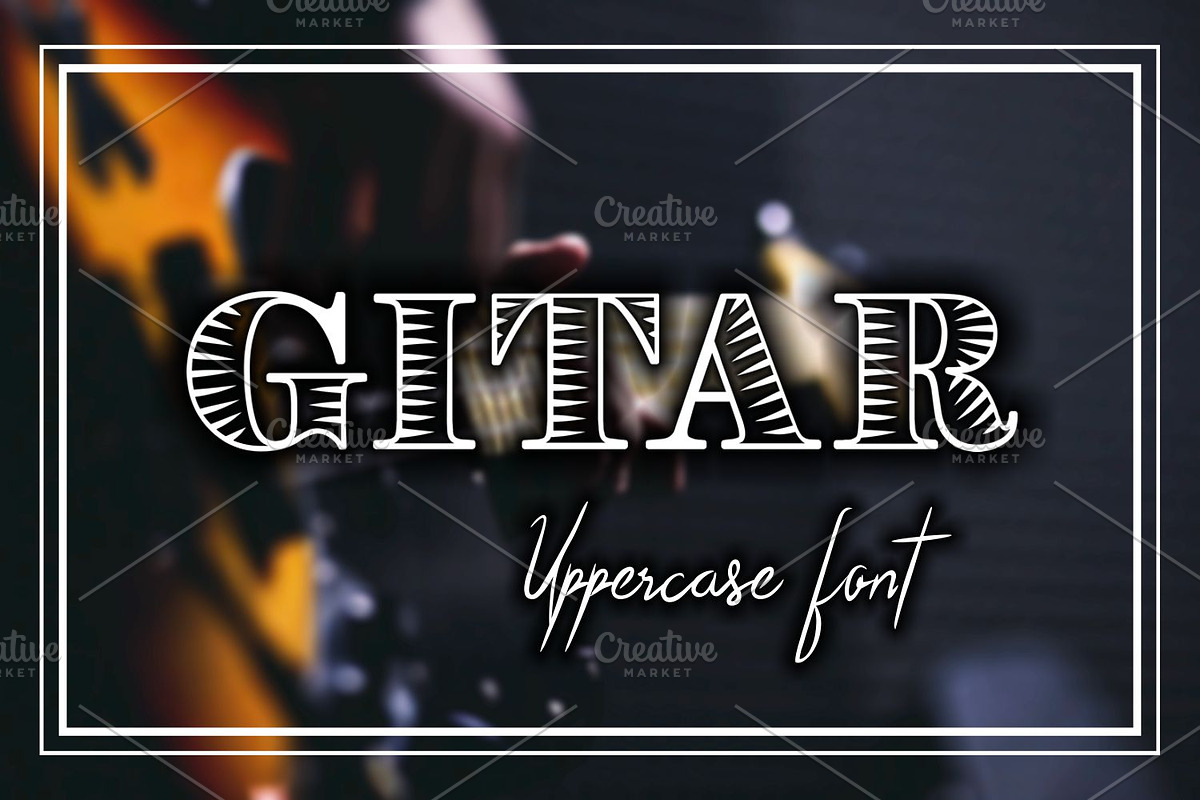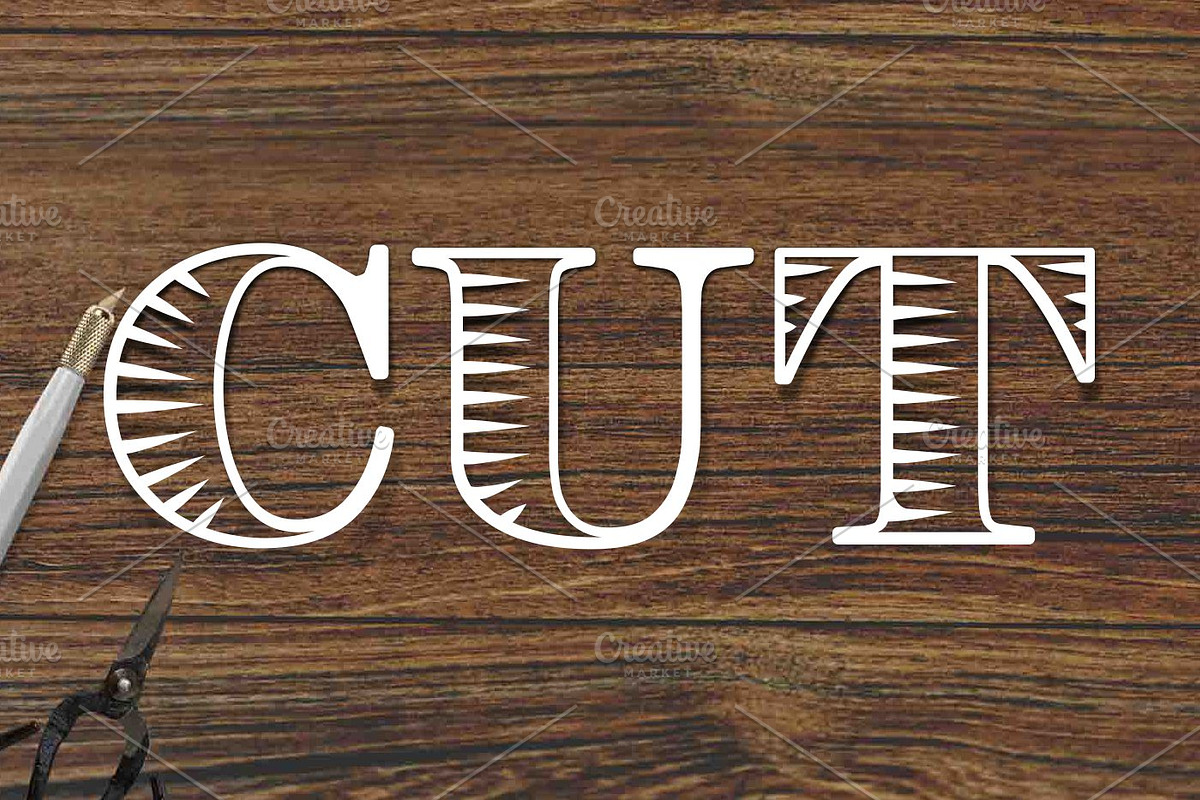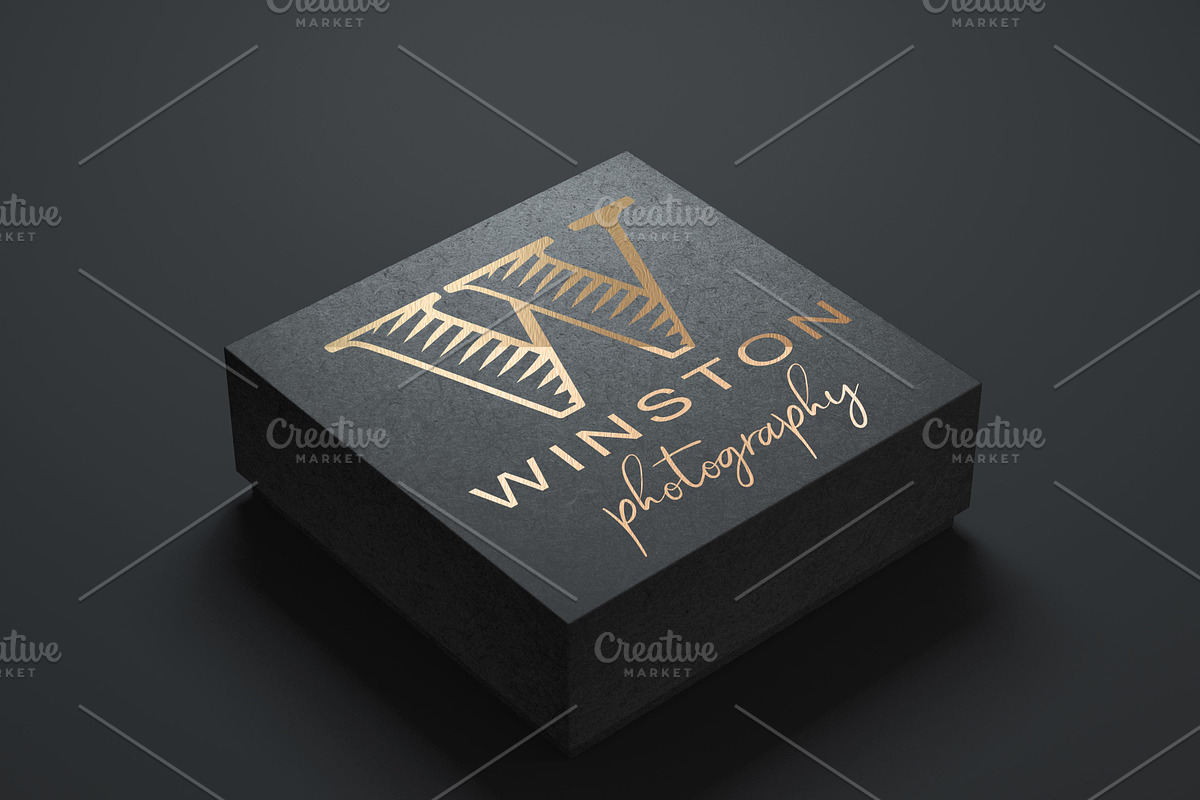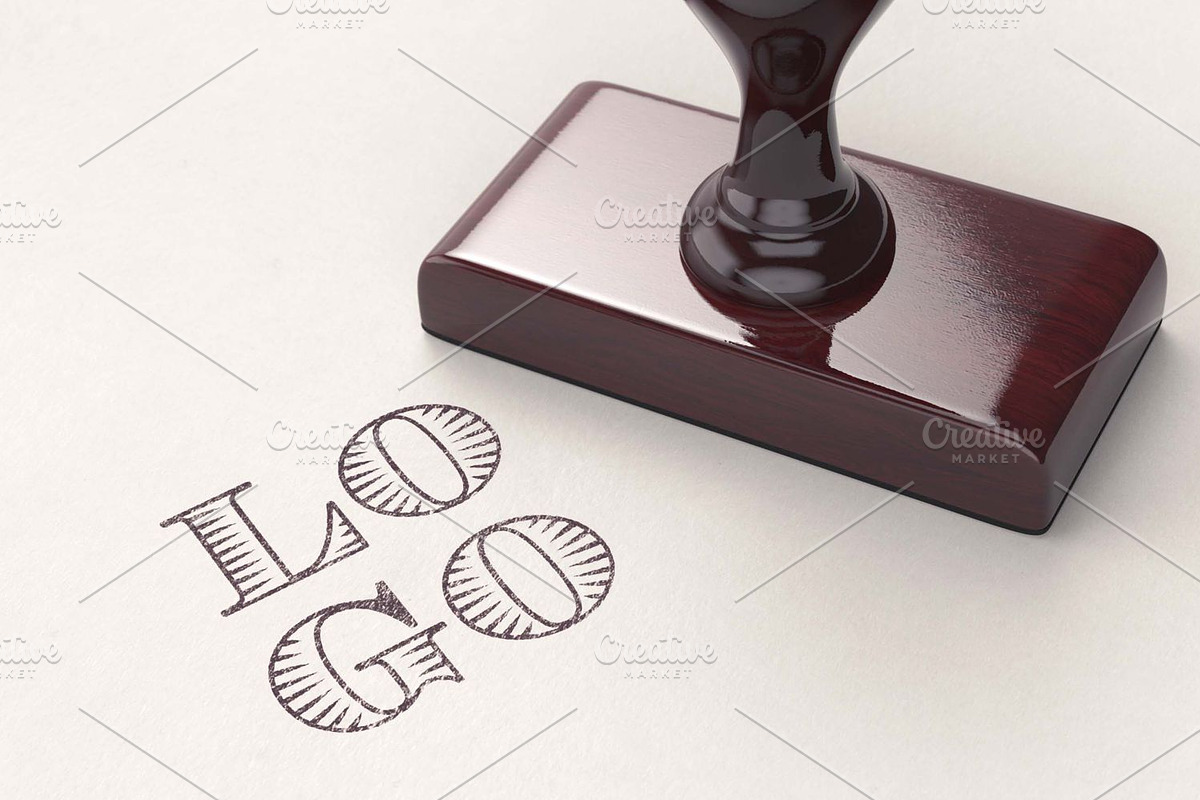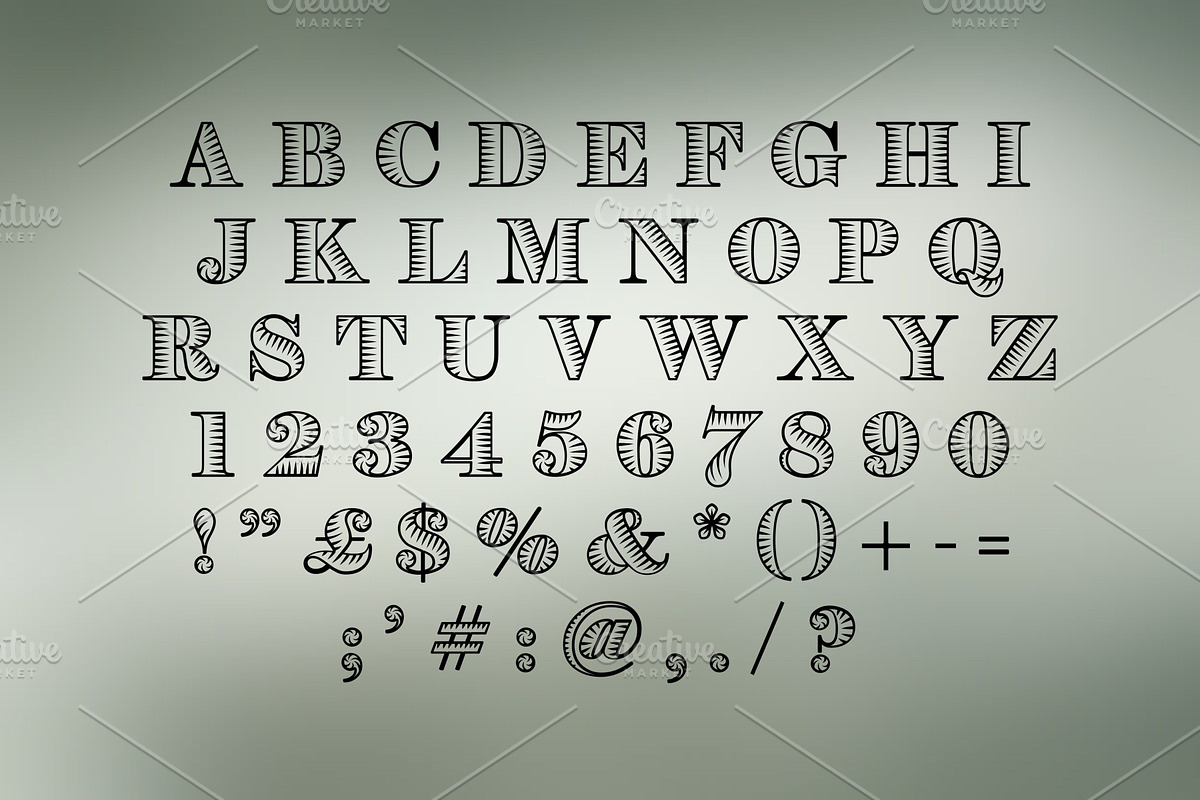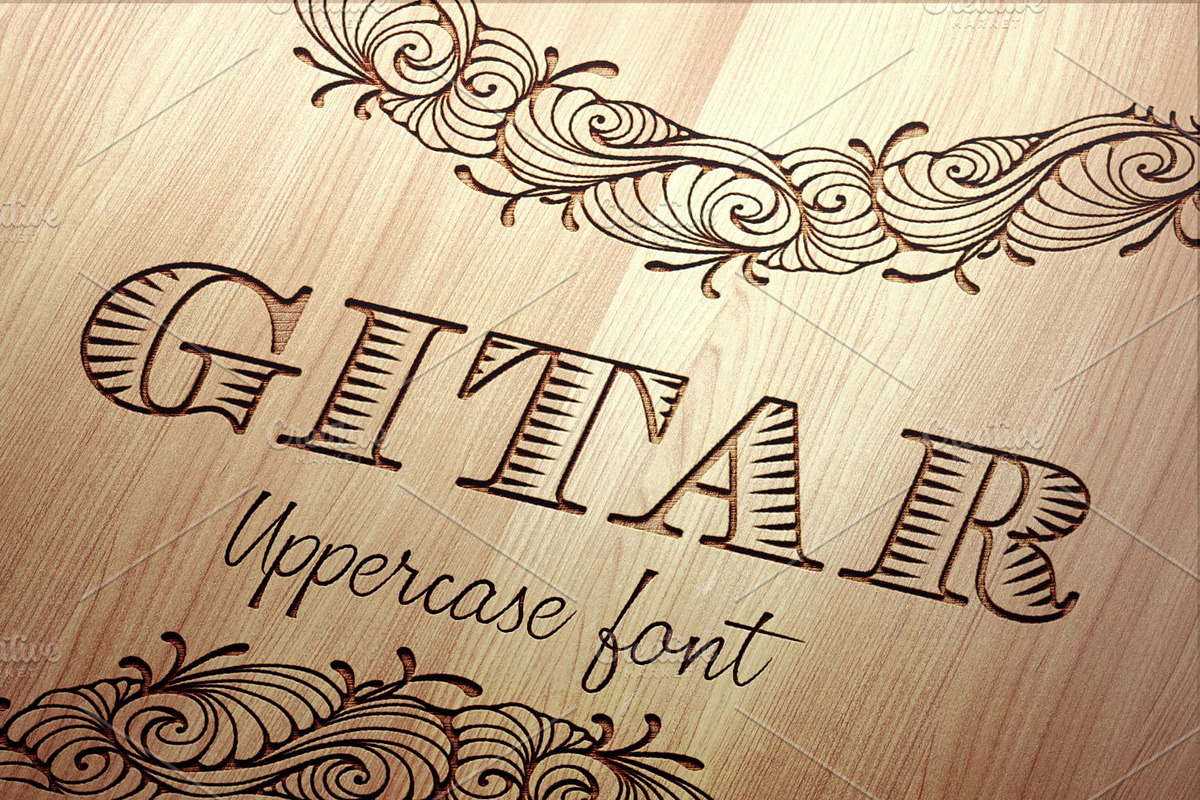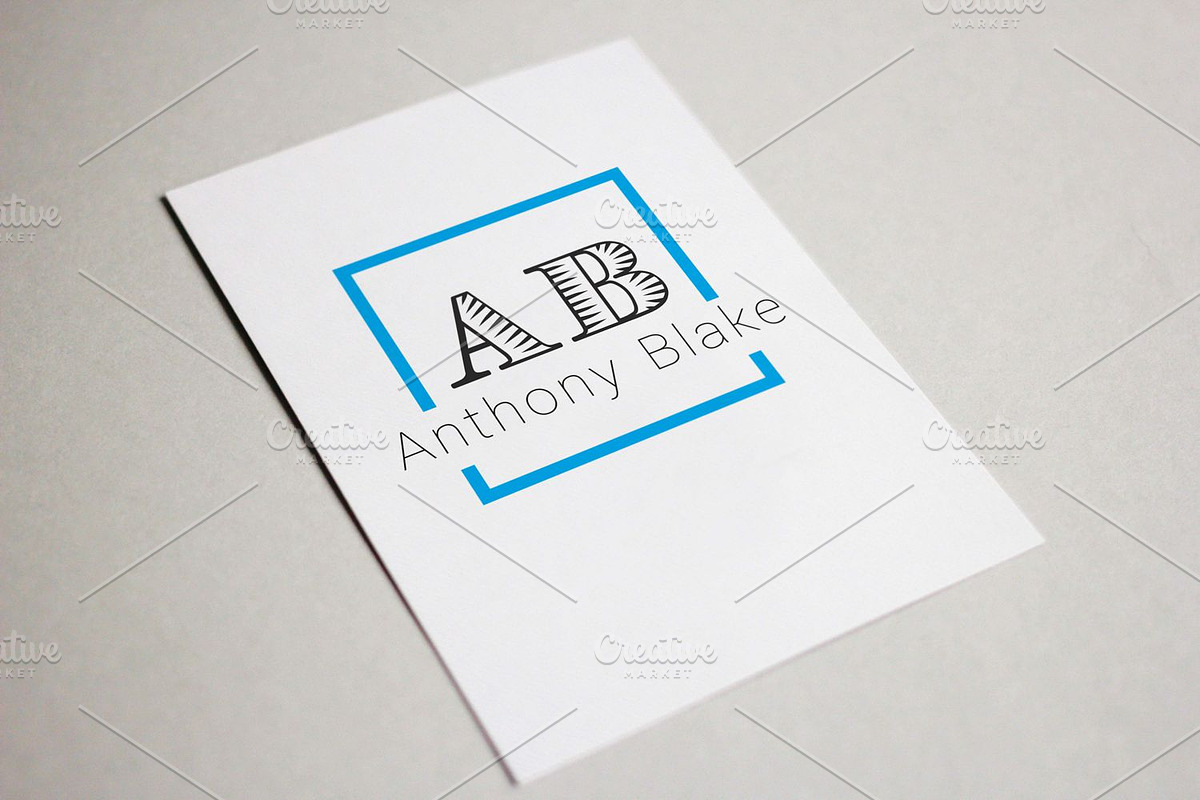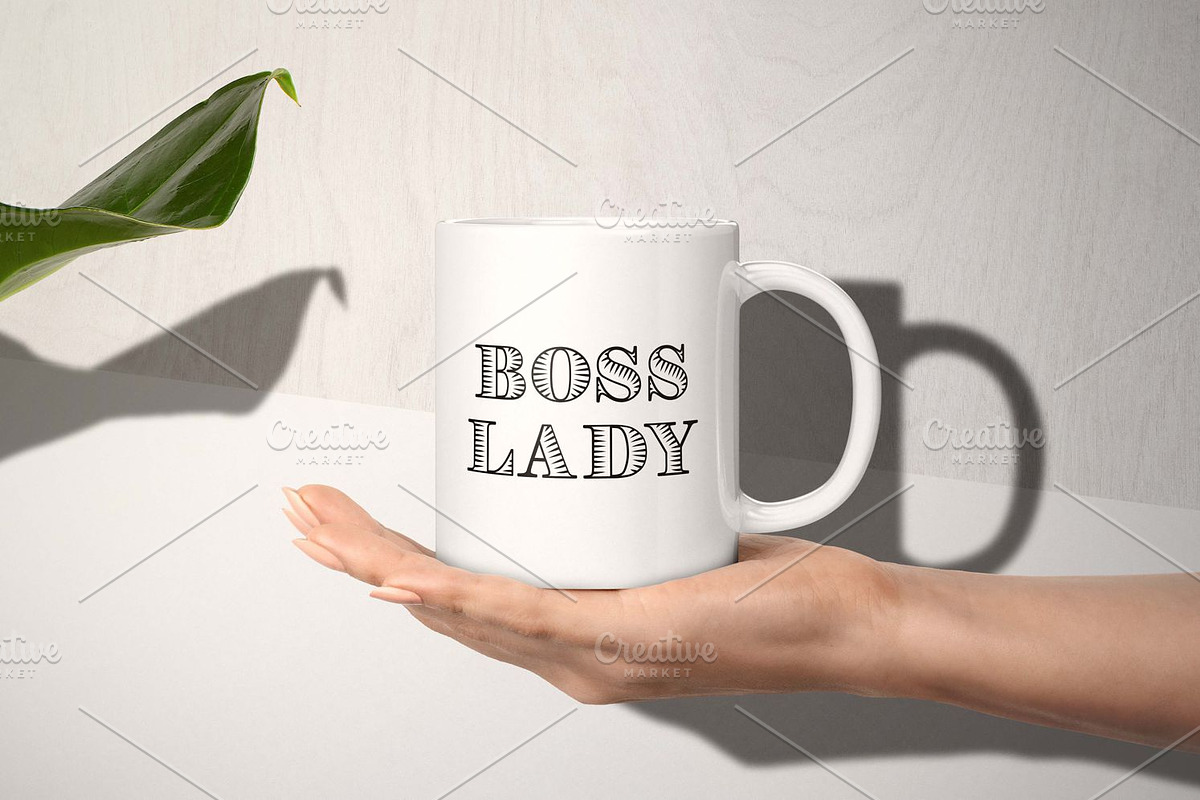
Gitar
Gitar is a carefully hand crafted uppercase typeface, great font for many craft projects.
Why Gitar is worth a look
Gitar by Digital Typeface Studio fits naturally into Branding, posters, packaging, typography.